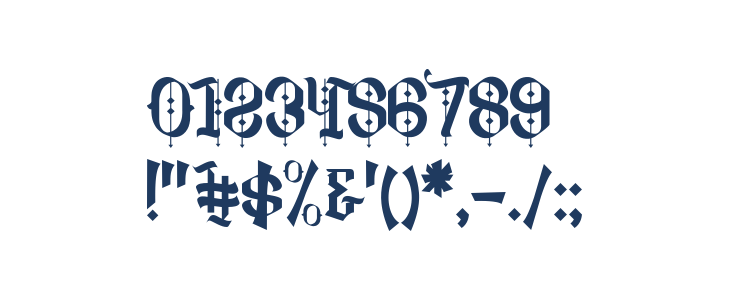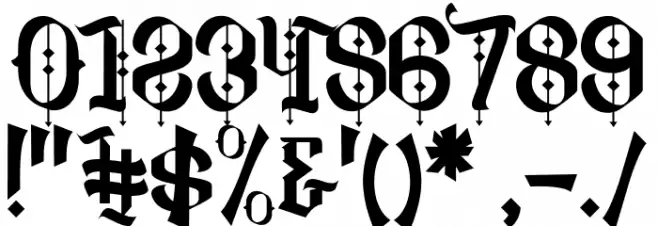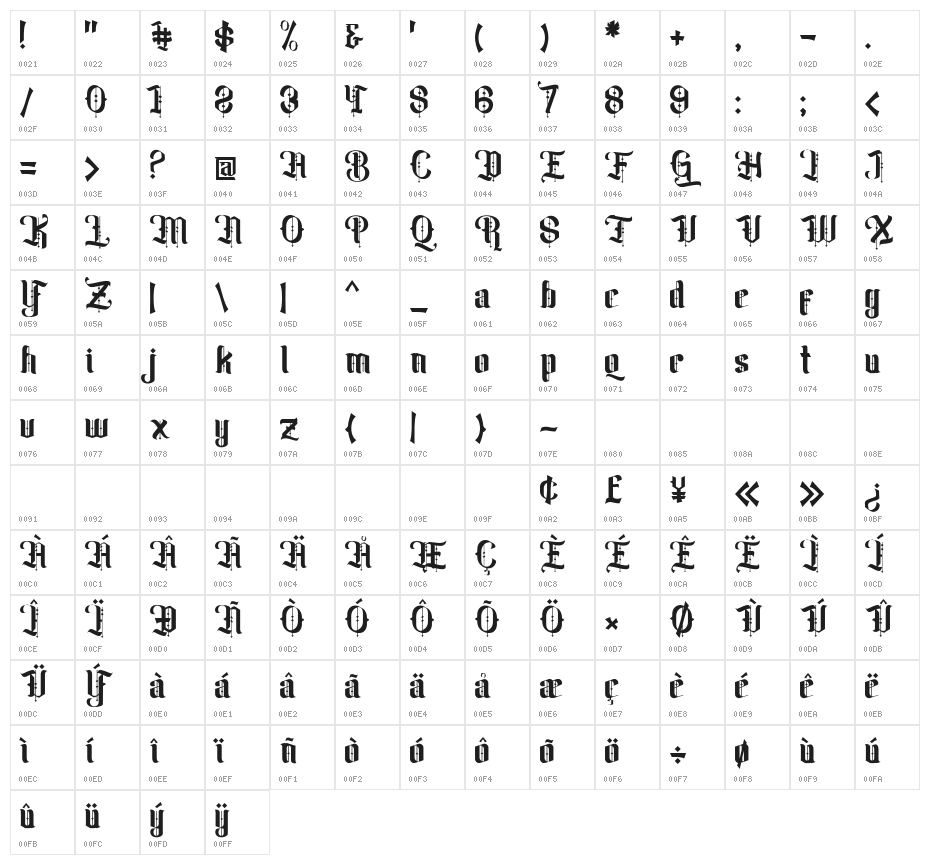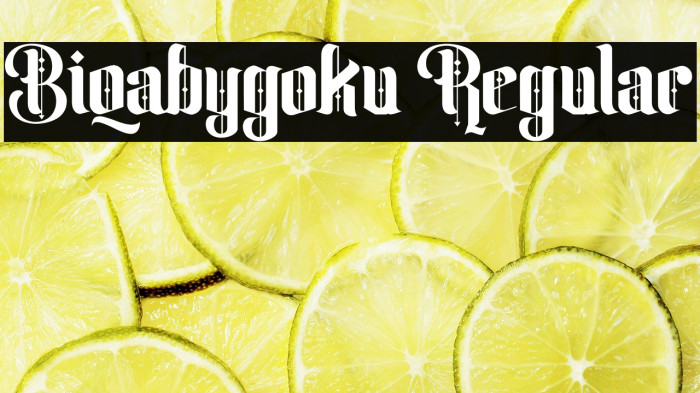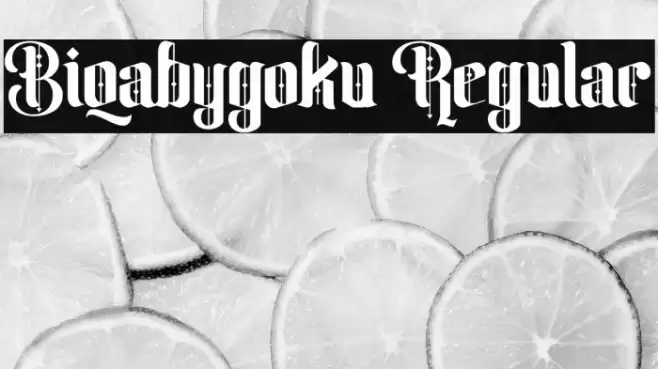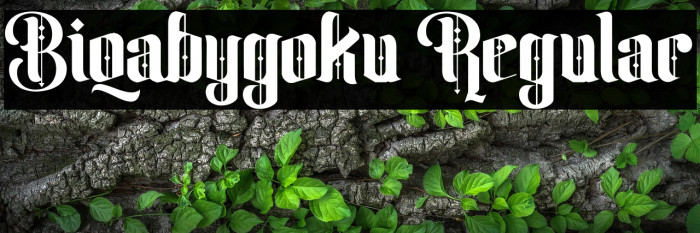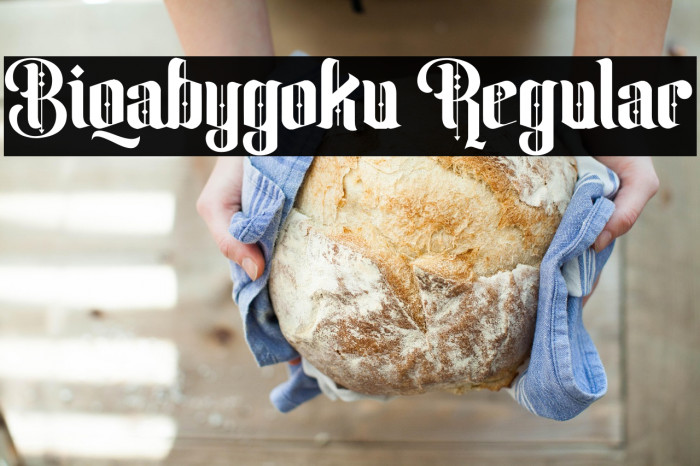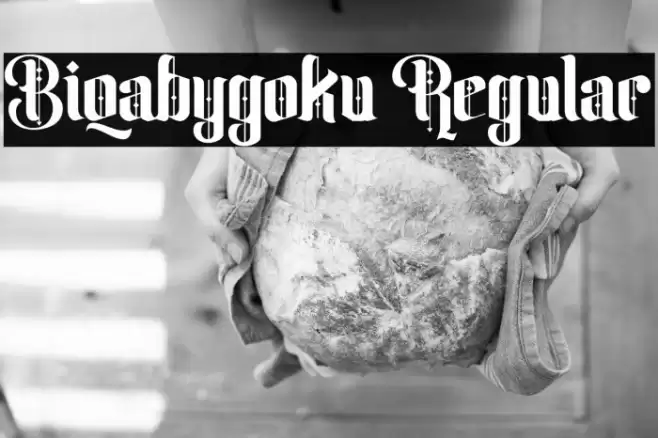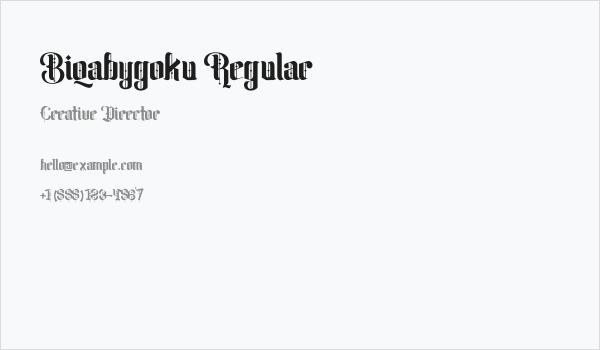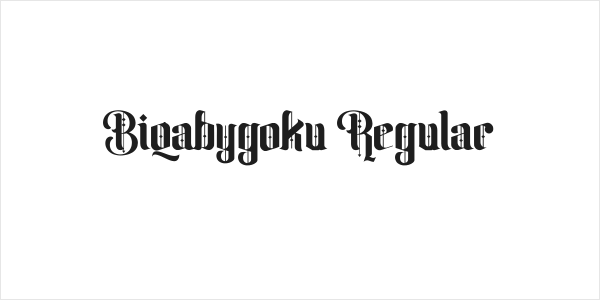
Biqabygoku Regular Font
Biqabygoku Regular Description
This font features a bold and dramatic blackletter style, characterized by its intricate and ornate design. The letters are highly stylized with sharp angles and pointed edges, giving it a gothic and medieval appearance. The uppercase letters are particularly elaborate, with decorative elements that extend beyond the basic letterforms. The lowercase letters maintain the same level of detail, ensuring consistency throughout the typeface. Numbers and special characters are equally ornate, making this font suitable for projects that require a strong visual impact.
| Overall Style | Gothic, Medieval |
| Proposed Projects | Ideal for use in branding, posters, album covers, and any project requiring a gothic or medieval aesthetic. |